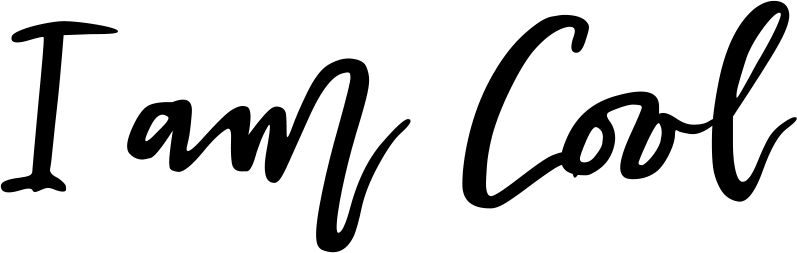
I Am Cool Font
I Am Cool font is one of the most advantageous fast handwriting fonts that can be used to sign documents, personal signatures, and much personal uses. Note that this calligraphic font allows you to save time, and you do not need to write your own signature.
This brush font has excellent offers for designing many wedding and birthday invitation cards that you can put on your download list right now.